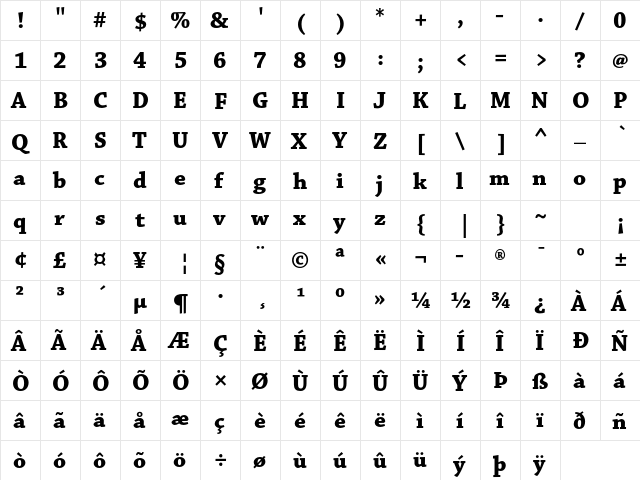
Chaparral Pro Bold
| Designer | Carol Twombly |
Design Context for Chaparral Pro Typeface
Chaparral Pro offers clean, dependable letterforms without strong stylistic allegiance, making it a practical choice for designers who need flexibility. The heavy weight commands attention and anchors typographic hierarchies.